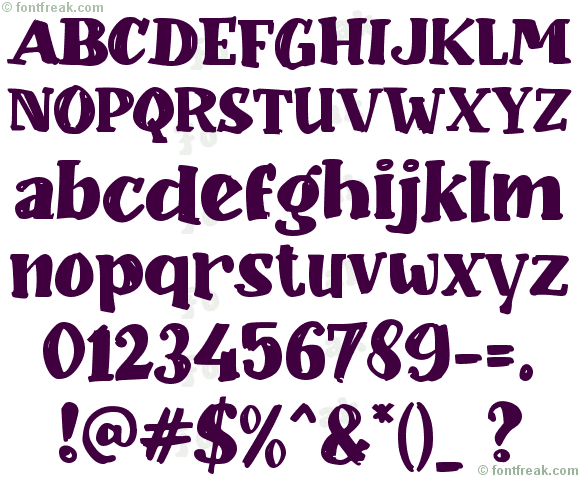
Bablas Angine
About Bablas Angine
Bablas Angine is a distinctive display font designed by Wahyu Eka Prasetya, categorized under decorative typefaces. This font features a unique blend of artistic flair and readability, making it suitable for a variety of creative projects. The strokes exhibit a playful weight, combining thick and thin contrasts that add a dynamic quality to its appearance. The letterforms are adorned with subtle decorative elements that enhance their character while maintaining clarity, making it an excellent choice for eye-catching designs.
The spacing of the characters is well-balanced, ensuring that the font remains legible even when used in larger sizes. This quality makes Bablas Angine particularly effective for use cases such as wedding invitations, where elegance and style are paramount. Additionally, it is ideal for movie posters, offering a bold statement that draws attention. Restaurant menus can also benefit from this font's unique charm, adding a touch of personality to the dining experience. Content creators and graphic designers will find this font versatile for branding materials, social media graphics, and promotional content, effectively capturing the audience's interest.